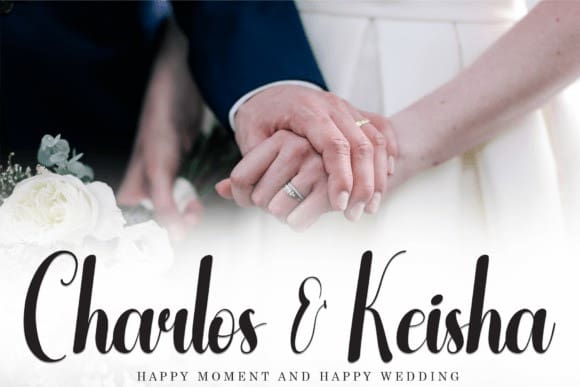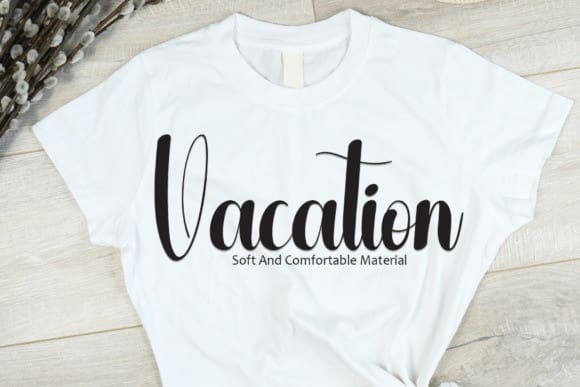
Acoustic Script Typeface
Acoustic Script Typeface, is a harmonious script and handwritten typeface that resonates with a sense of warmth and authenticity. With its flowing strokes and organic feel, it captures the essence of handcrafted artistry. Perfect for adding a touch of natural charm to logos, branding, invitations, and creative projects that seek a soothing and heartfelt aesthetic.